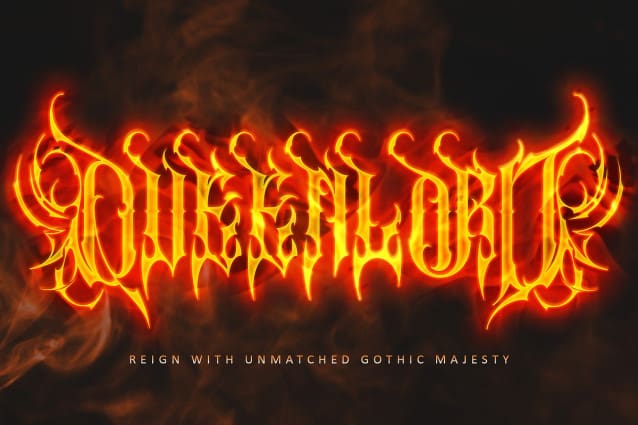
Queenlord Blackletter Font
Queenlord Blackletter Font, where power and elegance collide in a breathtaking display of gothic splendor. This font, forged in the spirit of dominance and grandeur, brings an aura of regal authority to every design. With its sharp, intricate strokes and commanding presence, Queenlord Blackletter is the perfect choice for album covers, logos, branding, movie titles, and posters that demand not just attention, but reverence. Whether it’s a bold headline or a signature mark, Queenlord ensures your creations stand tall with the majesty they deserve. Crown your designs with the ultimate gothic masterpiece—Queenlord.